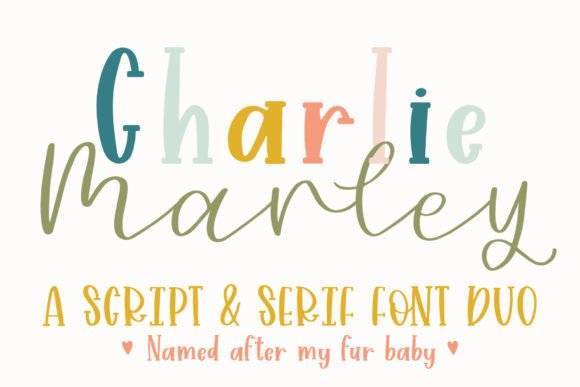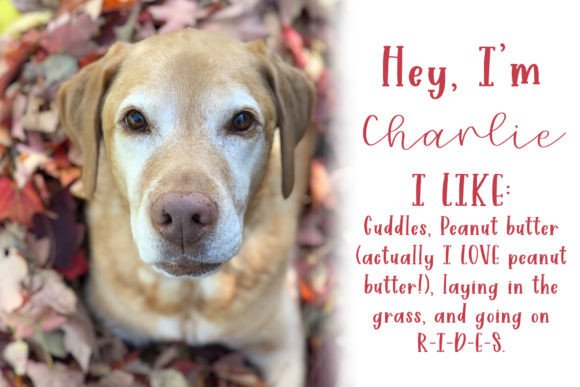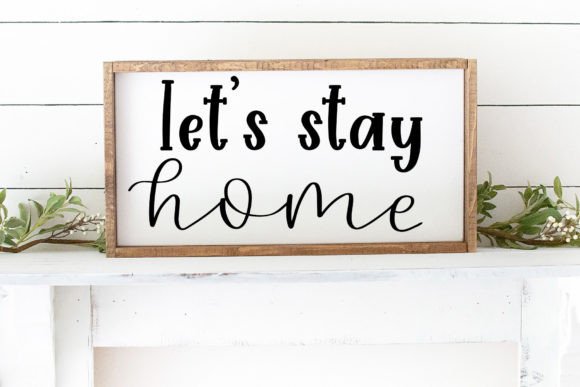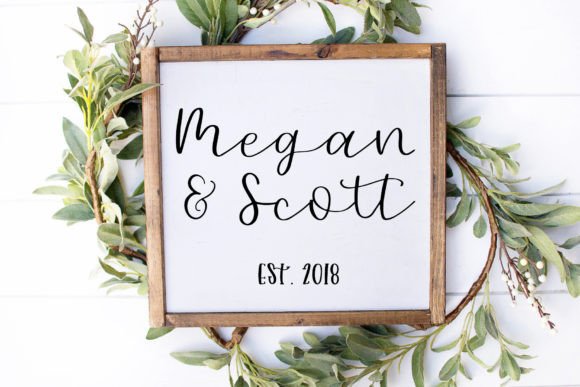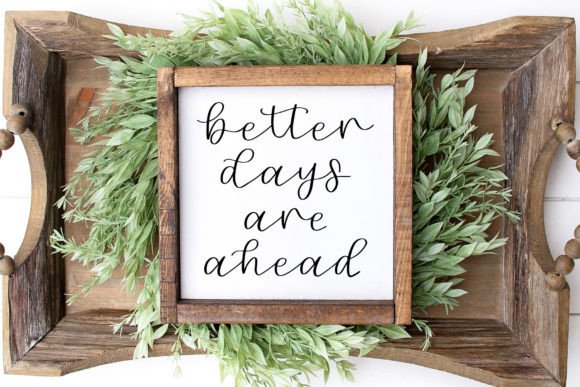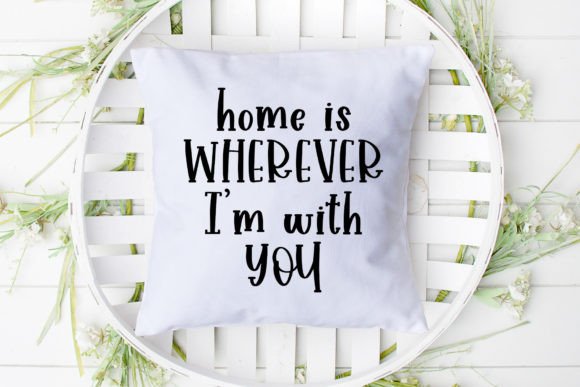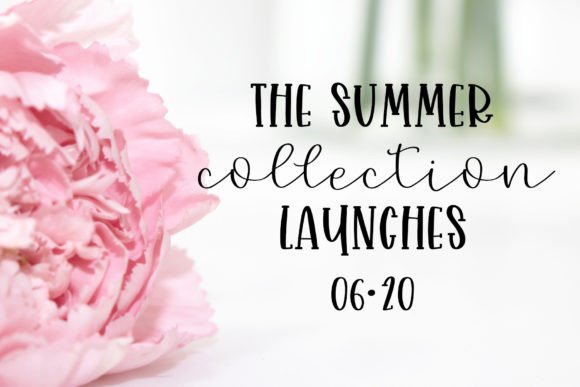
Charlie Marley is a serif and script font duo that balance each other well, but are also great standalone fonts. The serif is more masculine while the script is very delicate. This font is PUA encoded, which means you can access all of the glyphs and swashes with ease!
Charlie Marley Font